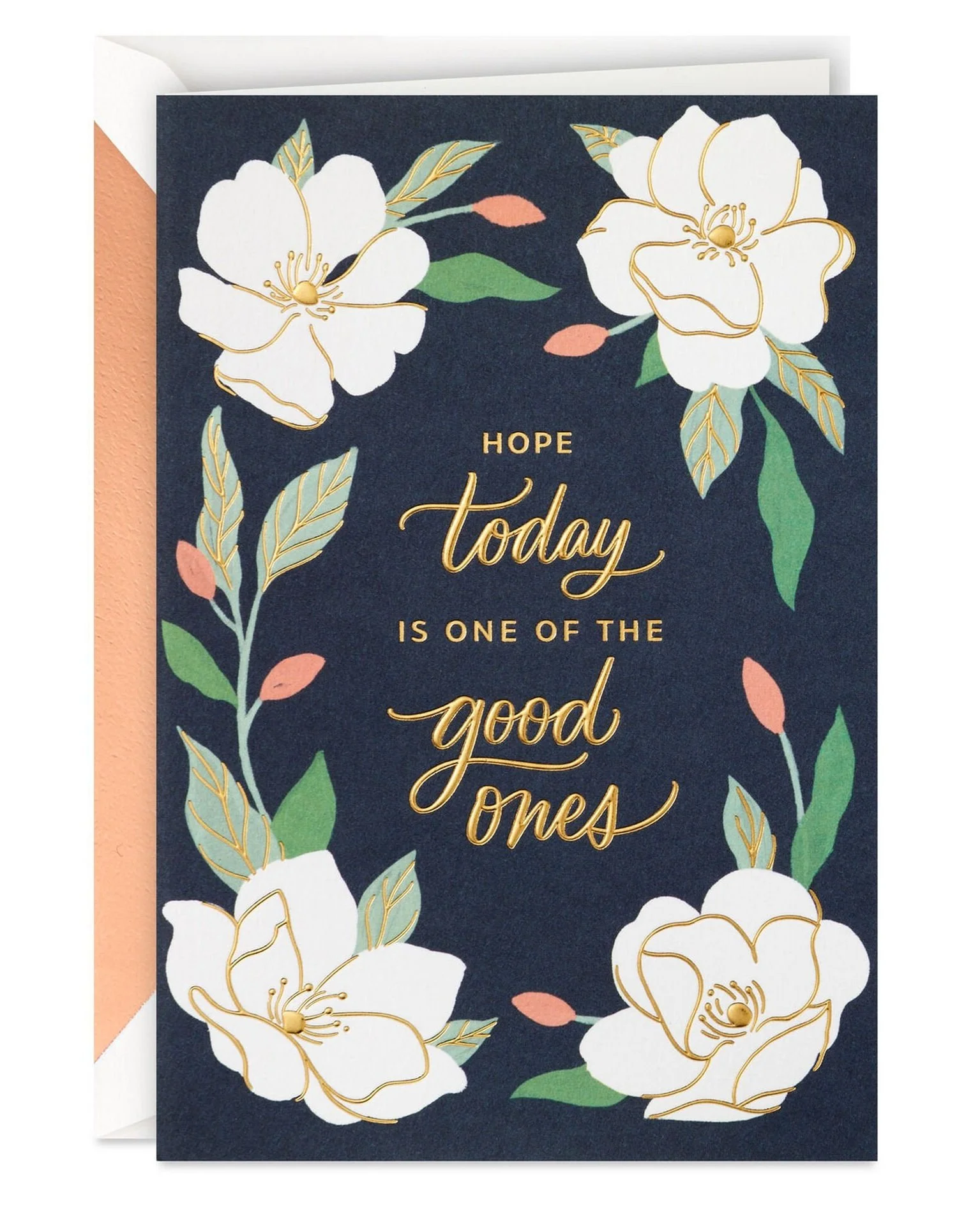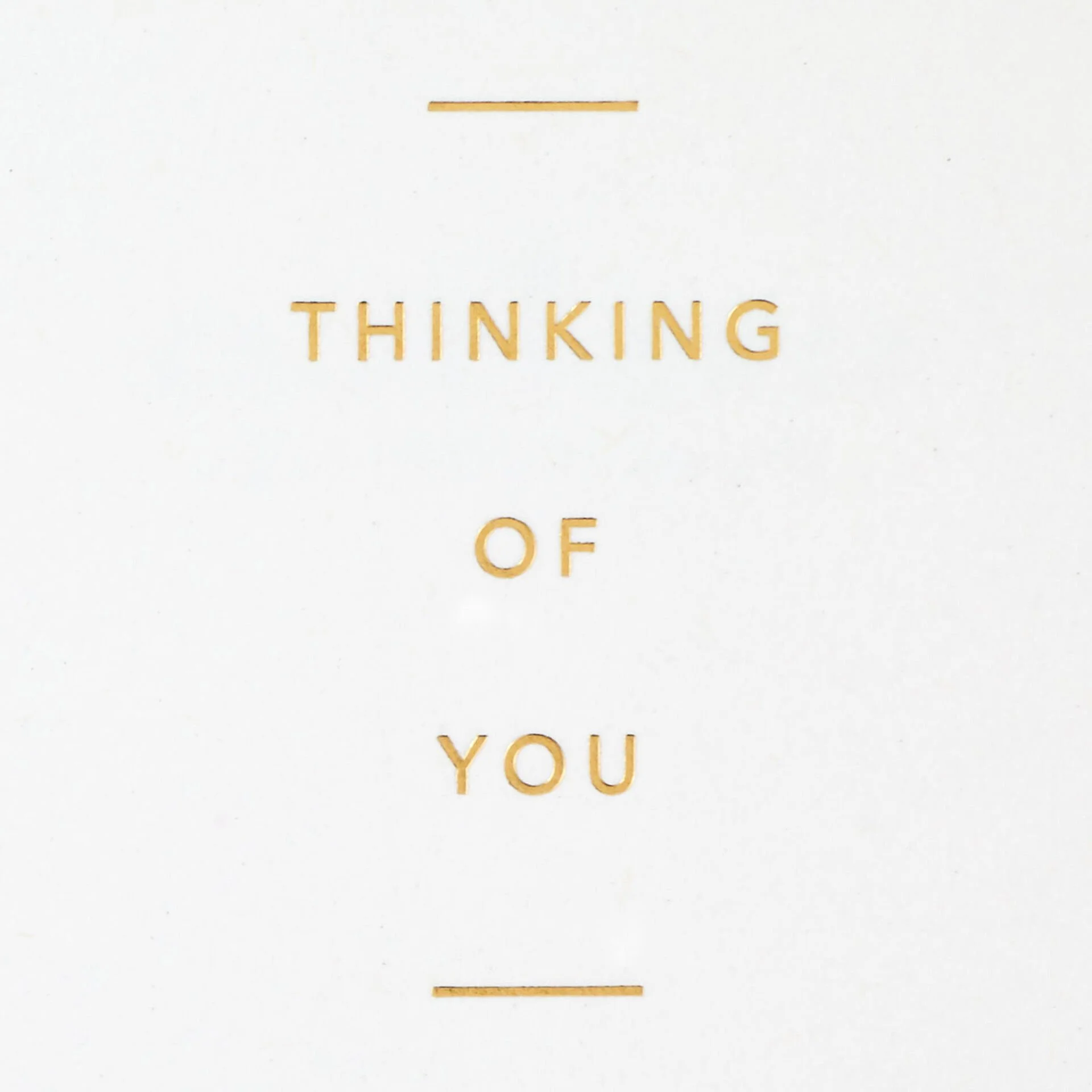
Signature Studio Collection Hope Today
I love how the foil lettering stands out on this thinking of you card. This is the perfect card to have on hand for many different reasons, and I hope it brings comfort to anyone who receives it!